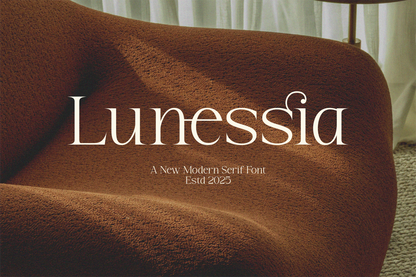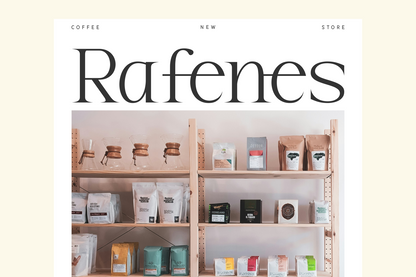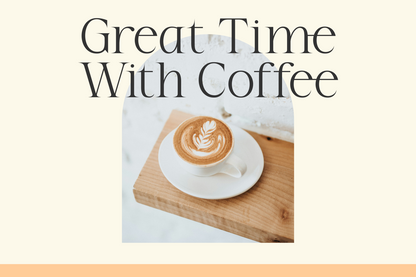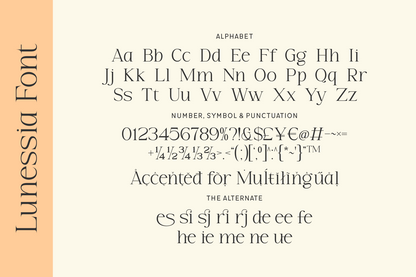
Lunessia is a sleek and stylish modern serif font featuring subtle curves and unique ligatures. Perfect for minimalist branding, home decor packaging, and editorial use, it adds a touch of quiet luxury to any project.